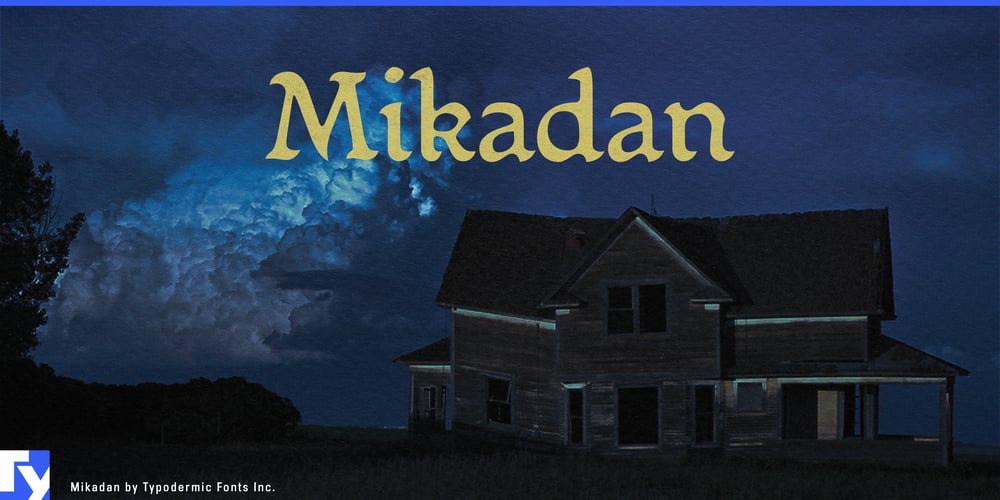
Mikadan Font Family was designed by Ray Larabie and published by Typodermic. Mikadan contains 1 styles and family package options. Harken, ye designers and scribes of the digital realm! Behold Mikadan, a typeface that bridges the chasm between ancient lore and modern craft with the finesse of a master swordsmith. This is no ordinary font, but a mystical fusion of medieval majesty and contemporary clarity, forged in the fires of typographic innovation.Mikadan draws its power from the hallowed scrolls of typographic history. It pays homage to the legendary Verona of Stephenson Blake, channeling the spirit of an age when knights roamed, and dragons soared. Yet it also harnesses the arcane energies of William Dana Orcutt’s Illumanistic, a turn-of-the-century creation shrouded in mystique. Not content with mere historical reverence, Mikadan also embraces the accessibility of Morris Fuller Benton’s Motto, a typeface that has weathered a century of design storms since its 1915 inception. But make no mistake—Mikadan is no mere relic. It stands as a beacon of readability in the modern age, its letterforms as clear as a crystal ball yet imbued with the romance of bygone eras. Whether you’re crafting a proclamation for a grand tournament, designing signage for the local apothecary, or emblazoning banners for your noble house, Mikadan rises to every quest with heroic versatility.For those versed in the arcane arts of OpenType, Mikadan reveals its true power. Summon forth unique drop-down capital letters and watch as your designs transform from mere parchment to legendary artifacts. These are not just letters, but gateways to realms of imagination, each stroke a tale waiting to be told. Mikadan’s linguistic prowess is as vast as the lands it can describe. From the fjords of Norway to the steppes of Central Asia, this typeface speaks in tongues both familiar and exotic. Latin scripts flow from its nib like honey, while Cyrillic characters dance with the grace of Slavic folk tales. No matter the language, Mikadan ensures your message resonates with the authority of a royal decree and the accessibility of a town crier’s call.Choose Mikadan, brave creators, and watch as your designs ascend from the realm of the ordinary to the pantheon of the extraordinary. In the grand tournament of typography, Mikadan stands ready to crown your creations with glory eternal.